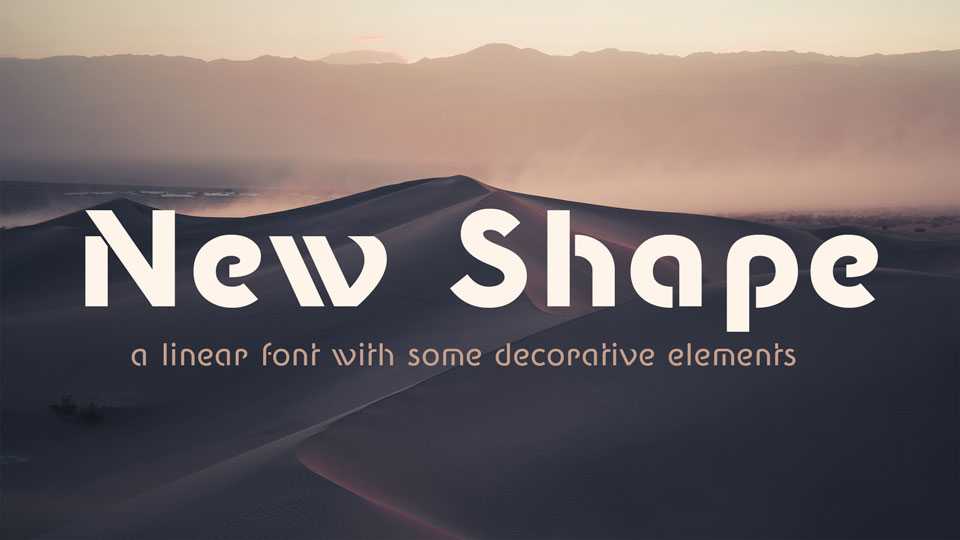
Download New Shape font, a sans serif typeface with own personality. New Shape is a linear font with some decorative elements, good looking on computer screen for use as default system font.
Designer: Wojciech Kalinowski